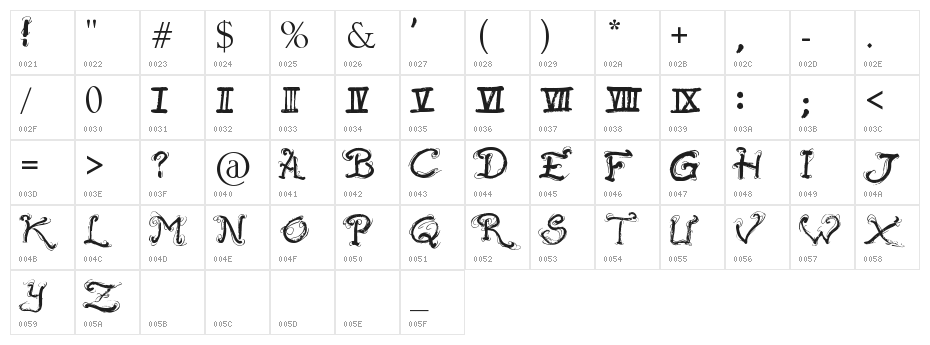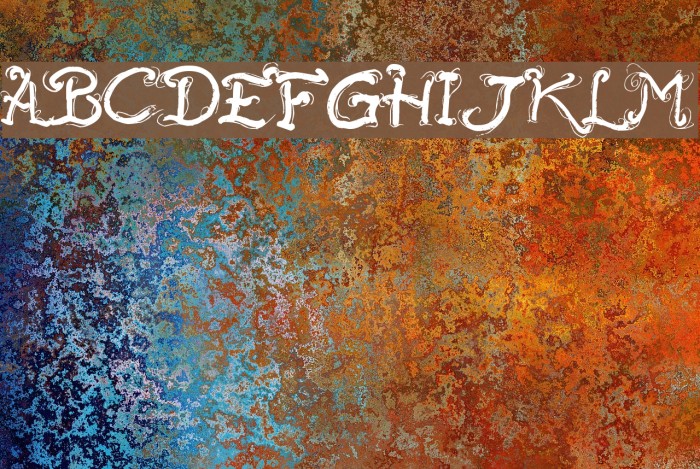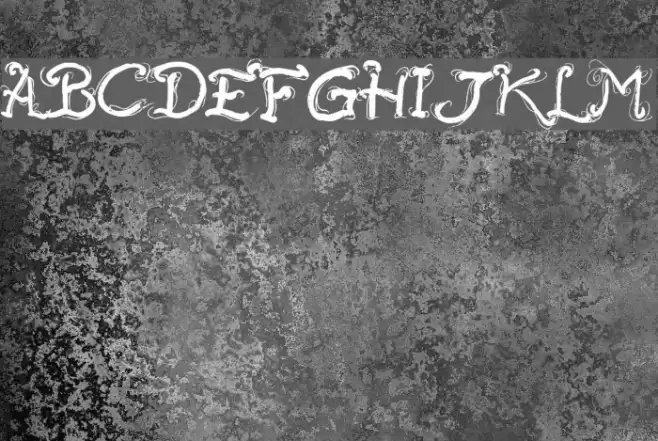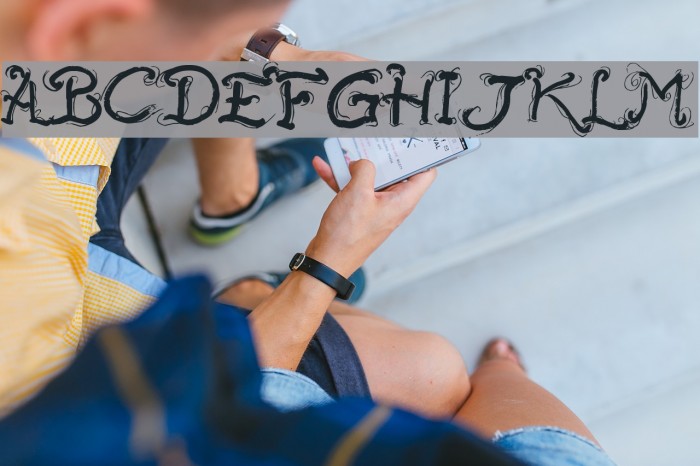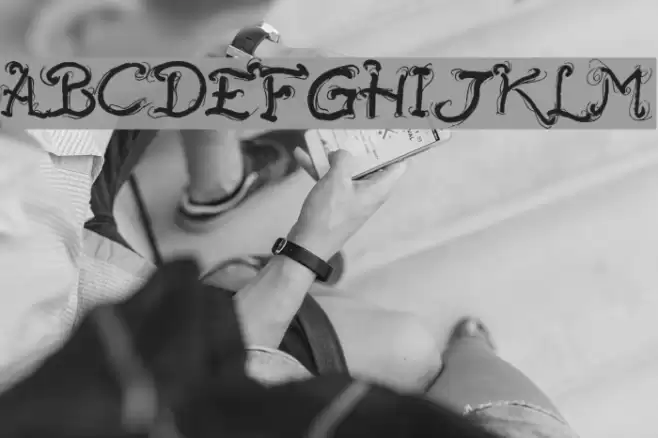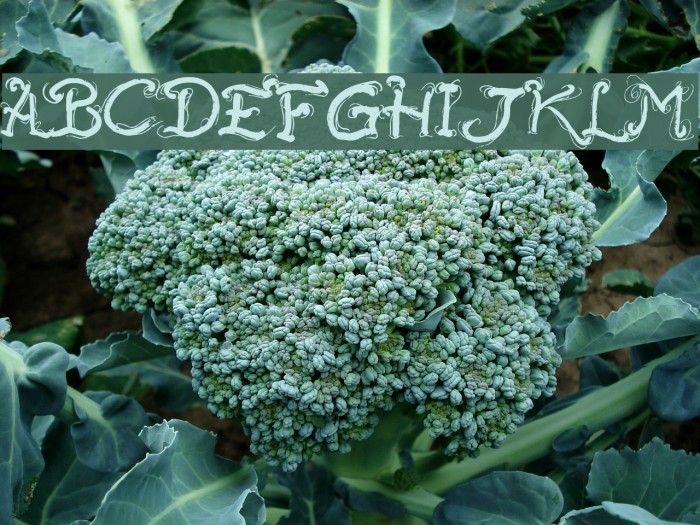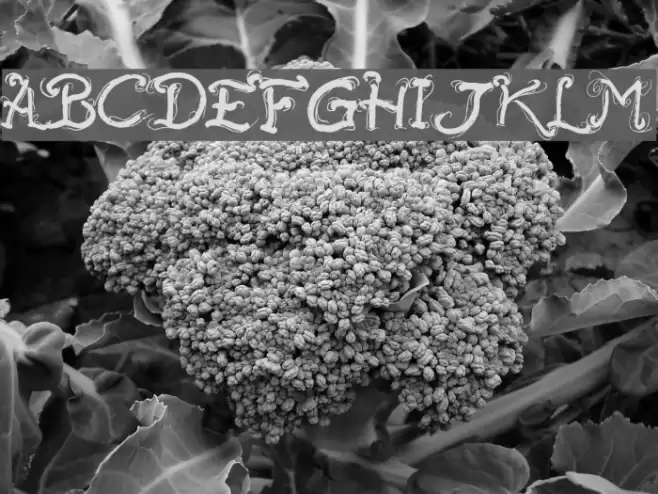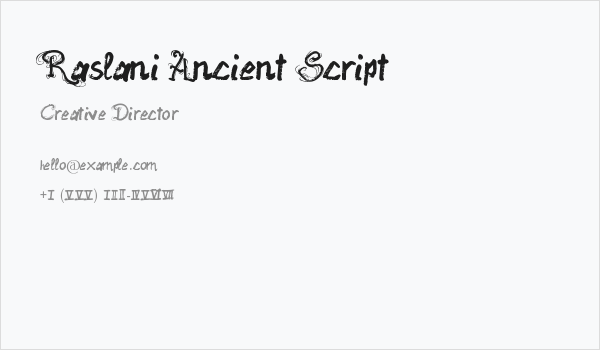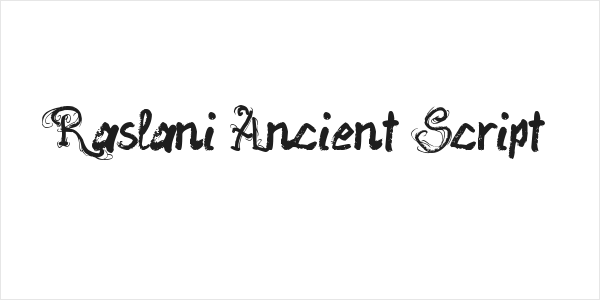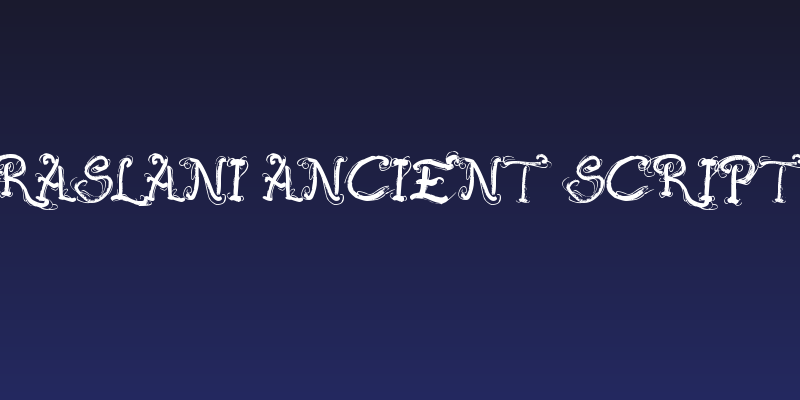
Raslani Ancient Script Font
Raslani Ancient Script Description
This font features an ancient script style with a decorative flair, characterized by its intricate and swirling serifs. The uppercase letters exhibit a calligraphic elegance, with each character adorned with unique flourishes that evoke a sense of historical artistry. The lowercase letters maintain a similar aesthetic, though they are slightly more subdued, offering a balance between readability and ornamental design. The numerals are bold and distinct, with a rugged texture that complements the overall theme. Special characters are creatively designed, adding to the font's versatility and appeal. This font is ideal for projects that require a touch of antiquity and sophistication.
| Use Case | Headlines, Logos, Decorative text |
| Proposed Projects | Perfect for historical themed designs, invitations, book covers, and branding that requires a classic touch. |